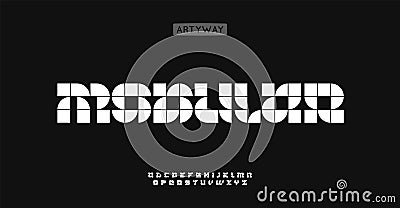
Modular tile alphabet, square module pattern letters, geometric grid font for digital logo, technological headline #359688935
Modular tile alphabet, square module pattern letters, geometric grid font for digital logo, technological headline, contemporary typography, modern typographic design. Vector typeset.